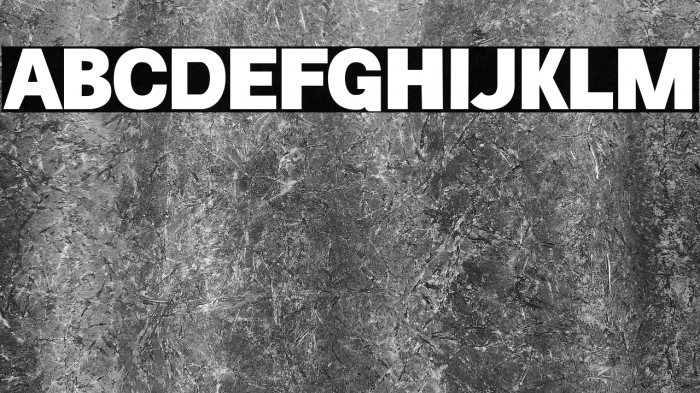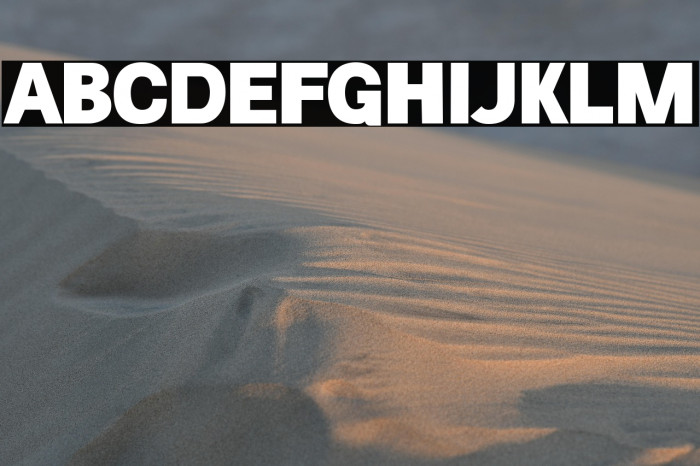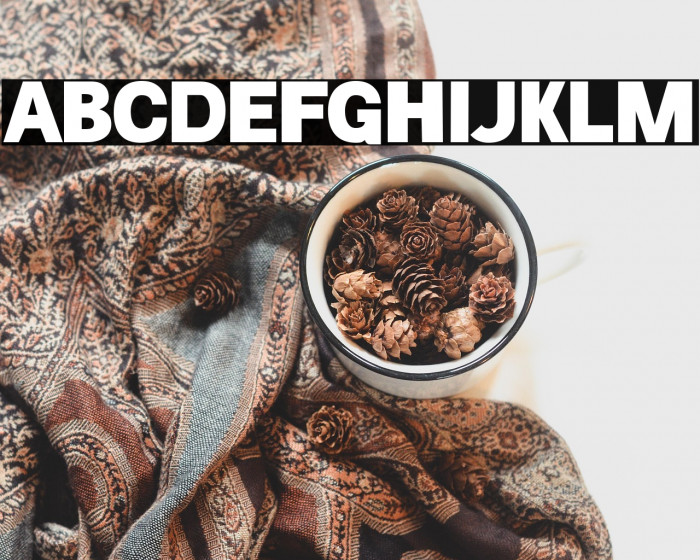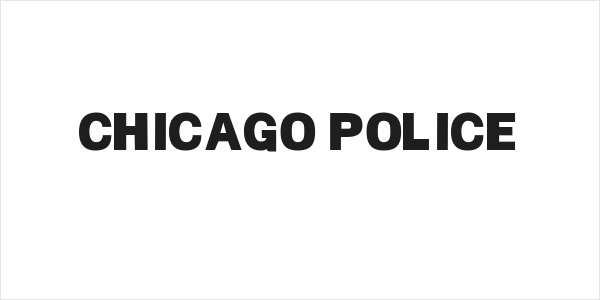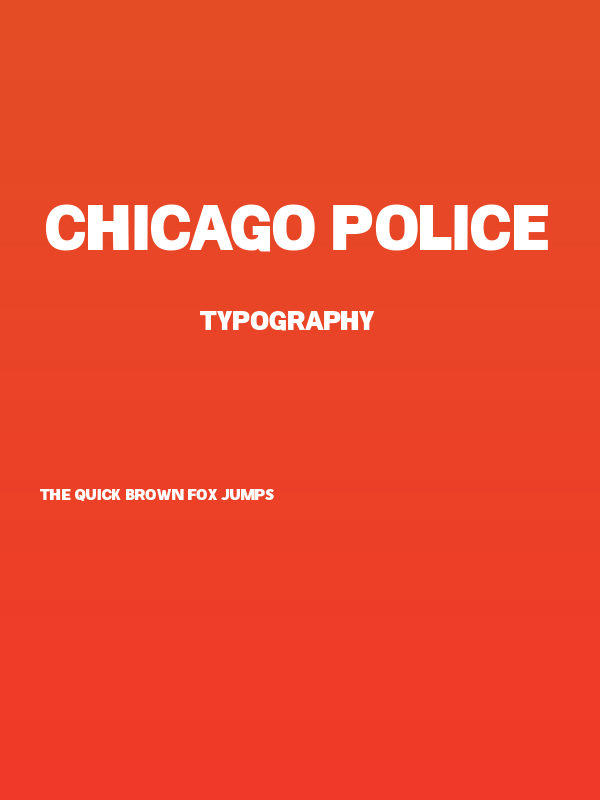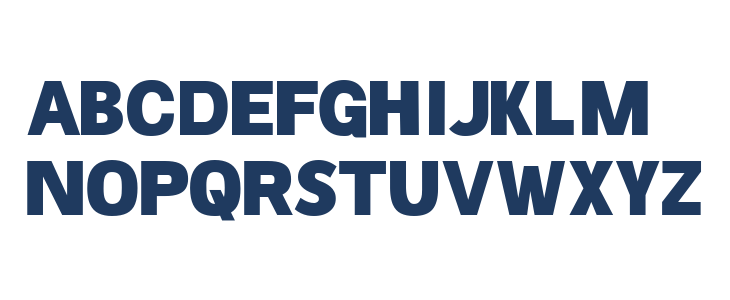
Chicago Police Font
Chicago Police Description
This typeface features bold, uppercase letters with a strong, authoritative presence. The characters are sans-serif, offering a clean and modern look. The strokes are thick and uniform, providing a sense of stability and strength. The spacing between characters is tight, which enhances the compact and impactful nature of the text. This font is ideal for conveying messages that require attention and seriousness, making it suitable for official or formal contexts.
| Use Case | Headlines, Logos, Signage |
| Proposed Projects | Ideal for use in signage, branding for law enforcement or security agencies, and any project requiring a bold and authoritative typeface. |